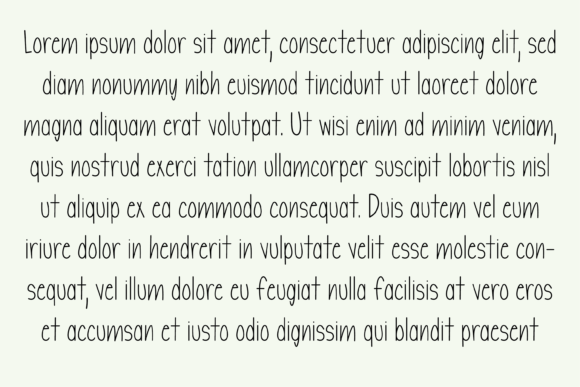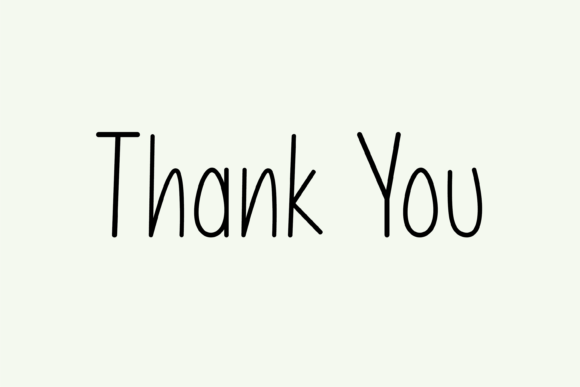
Introduction to Duldan Font
Have you ever stared at a blank canvas, waiting for inspiration to strike? That’s exactly where I was when I stumbled upon the Duldan Font. Its whimsical charm instantly sparked a creative idea, and I knew I had to dive deeper. This simple yet friendly handwritten font is more than just a pretty face – it’s a design game-changer.
As designers, we’re always on the lookout for high-quality design resources that can elevate our creative projects. The Duldan Font is perfect for logos, wedding invitations, quotes, and advertisements, making it an invaluable addition to any design arsenal. Plus, it’s available for free download, which is music to any designer’s ears. With its transparent background, this font is as versatile as it is stylish, making it a must-have for any creative project.
- Unique and modern design aesthetic, perfect for branding, logos, and typography-based design projects.
Honest Review: Duldan Font
I recently had the chance to work with the Duldan Font for a creative project, and I must say it was a great experience. The font is a high-quality design resource that’s perfect for any project that needs a unique touch.
- ✨ The font’s clean and modern design makes it suitable for a wide range of applications, from corporate branding to digital graphics.
- ✨ The transparent background makes it easy to layer over other design elements without any distractions.
- ⚠️ The font may not be ideal for very small text sizes, as the letters can become difficult to read.
- ⚠️ There are limited font sizes and styles available, which may limit its versatility in certain projects.
Overall, I’m impressed with the Duldan Font and would definitely recommend it as a design resource for any creative project. Its high quality and unique design make it a great addition to any designer’s toolkit.
Getting the Most Out of Duldan Font
To get the most out of Duldan Font, try experimenting with different font sizes, colors, and styles. You can also use it in combination with other design resources to create unique and eye-catching designs.
Duldan Font is perfect for a variety of creative projects, including:
- Brand identity
Alternatives to Duldan Font
Alegreya Font is a high-quality, free download serif font suitable for creative projects requiring a classic look. It features a transparent background, making it perfect for overlaying on images or using as a standalone text element. Alegreya Font is ideal for designs that need a touch of elegance and sophistication.
Compared to Duldan Font, Alegreya Font has a more traditional feel and is better suited for formal or professional designs. It lacks the modern, geometric feel of Duldan Font, but makes up for it with its classic beauty.
Montserrat Font is a free download sans-serif font that’s perfect for modern design projects. It features a clean and minimalist aesthetic, making it ideal for designs that require a clear and easy-to-read font. Montserrat Font has a transparent background, allowing it to be easily layered on top of other design elements.
Compared to Duldan Font, Montserrat Font has a more modern feel and is better suited for designs that require a clean and minimalist aesthetic. It lacks the geometric feel of Duldan Font, but makes up for it with its clean lines and modern look.
Playfair Display Font is a high-quality, free download serif font that’s perfect for creative projects requiring a touch of luxury and sophistication. It features a transparent background, making it perfect for overlaying on images or using as a standalone text element. Playfair Display Font is ideal for designs that need a touch of elegance and refinement.